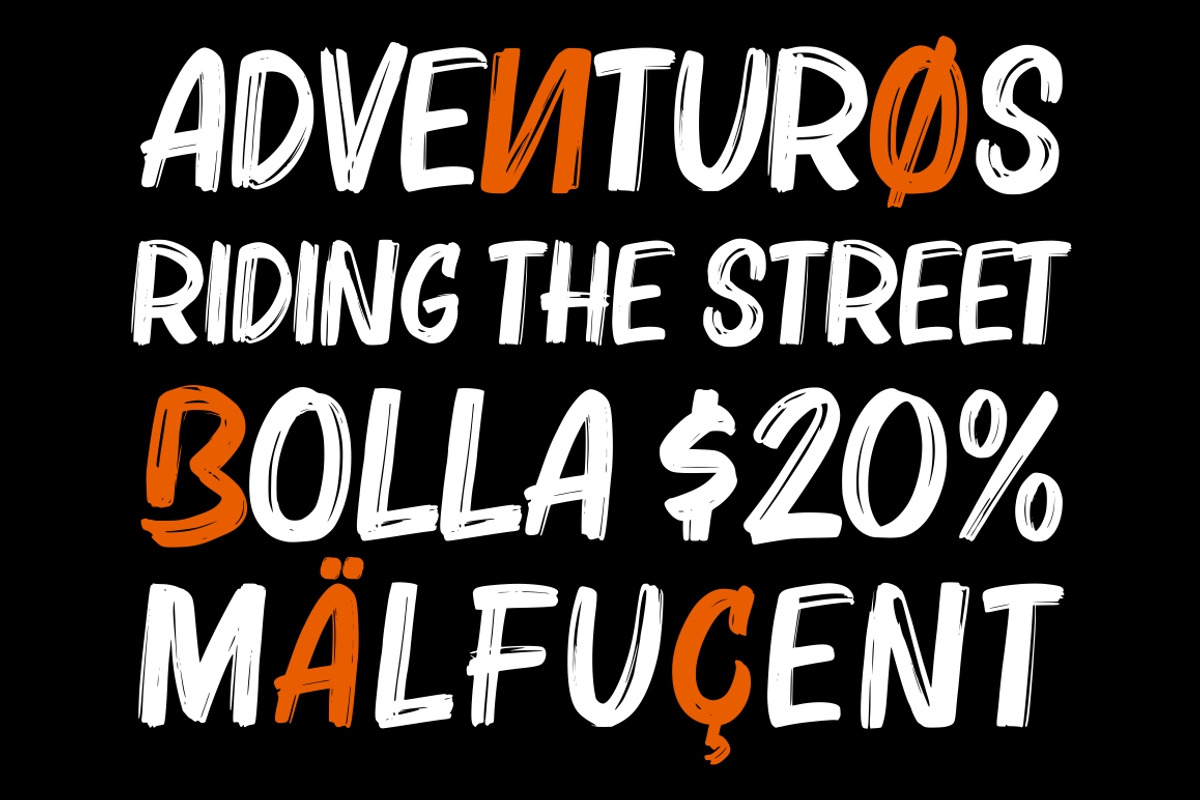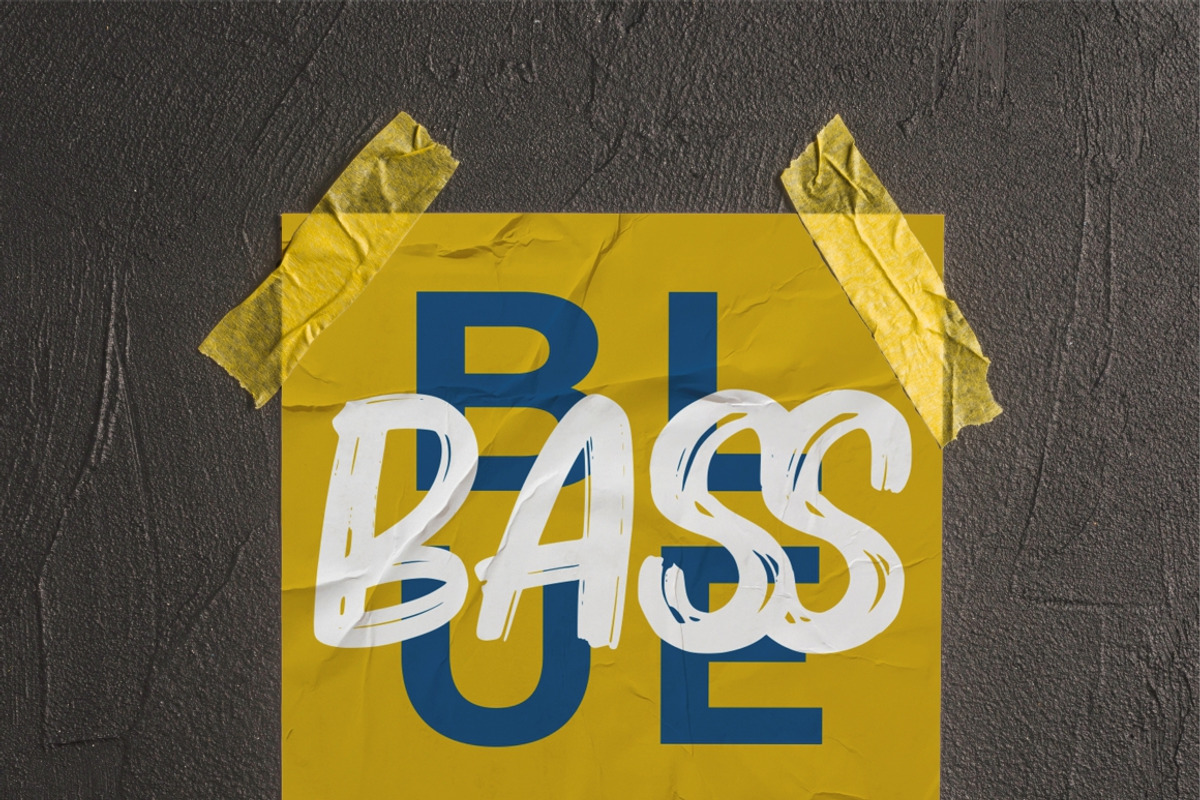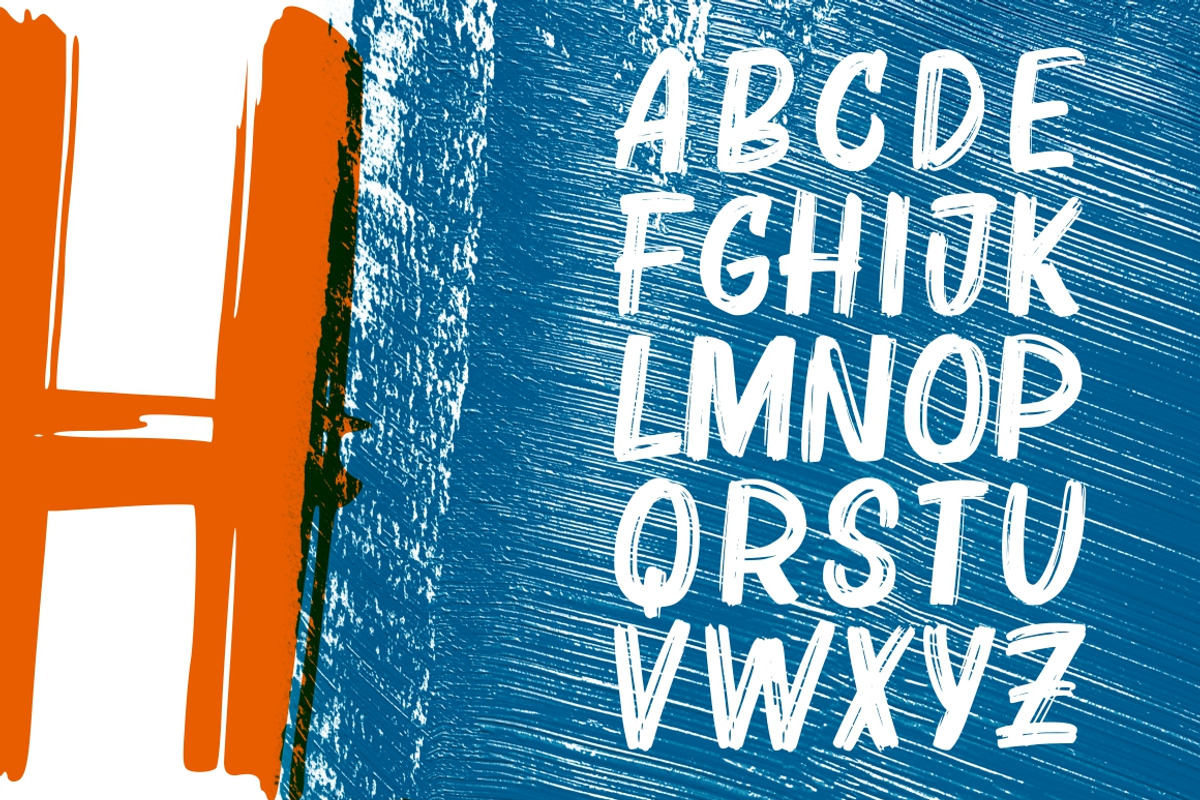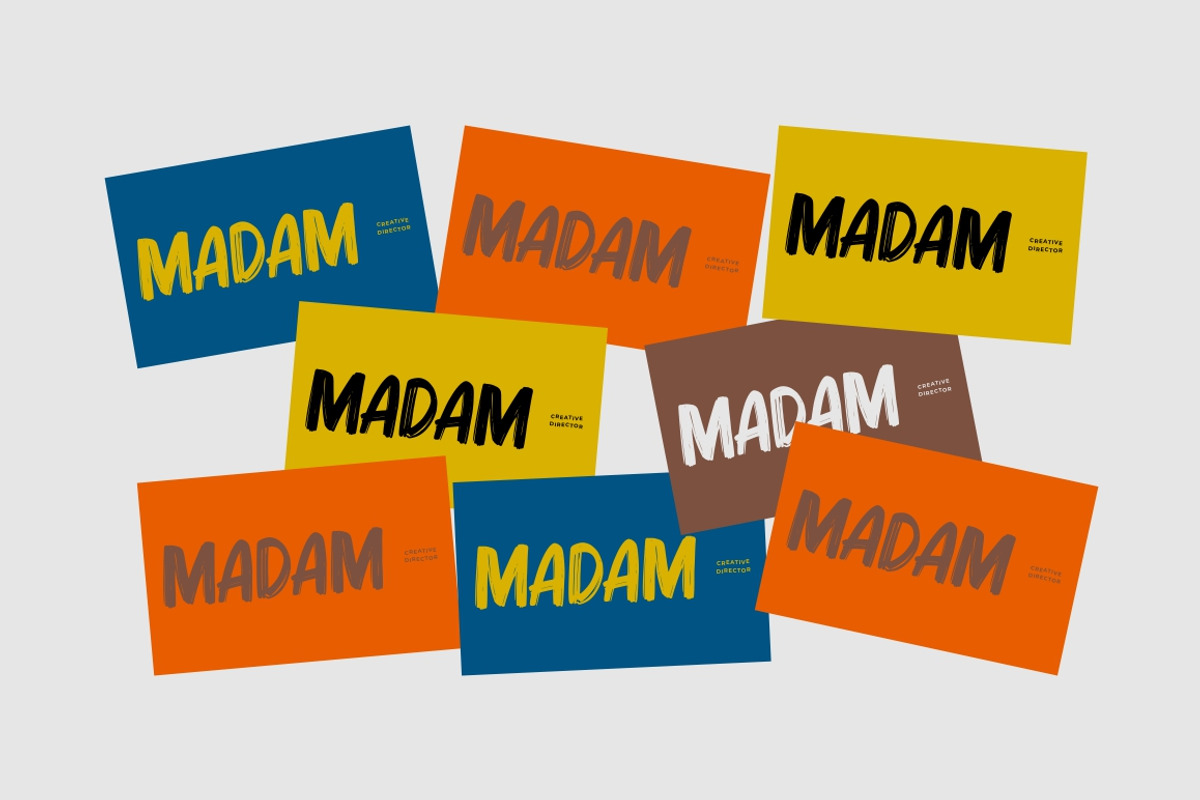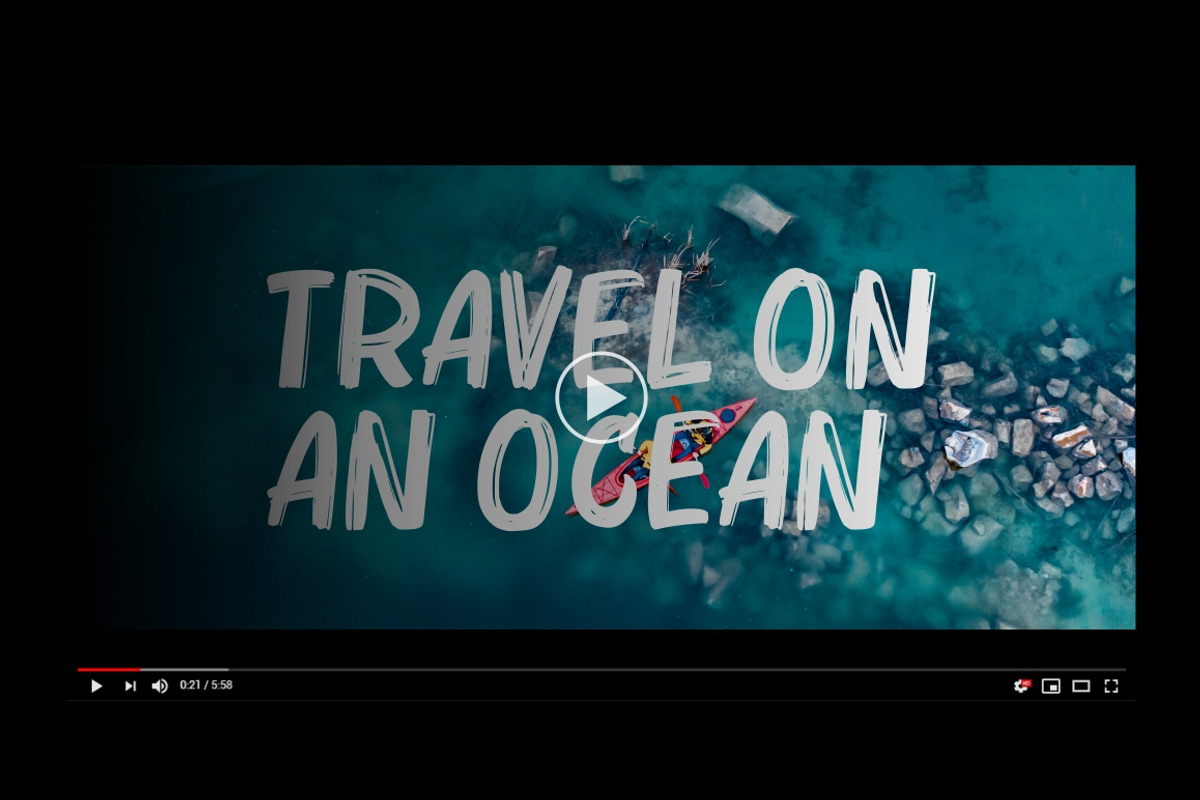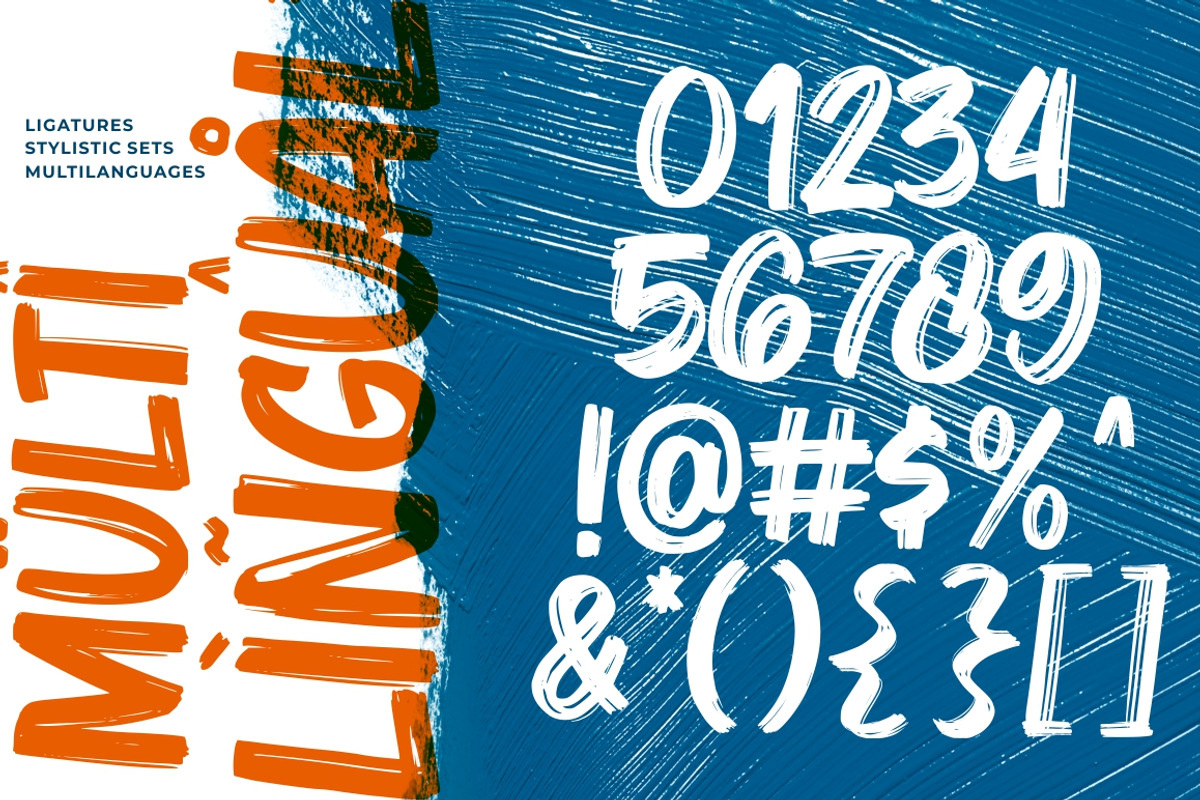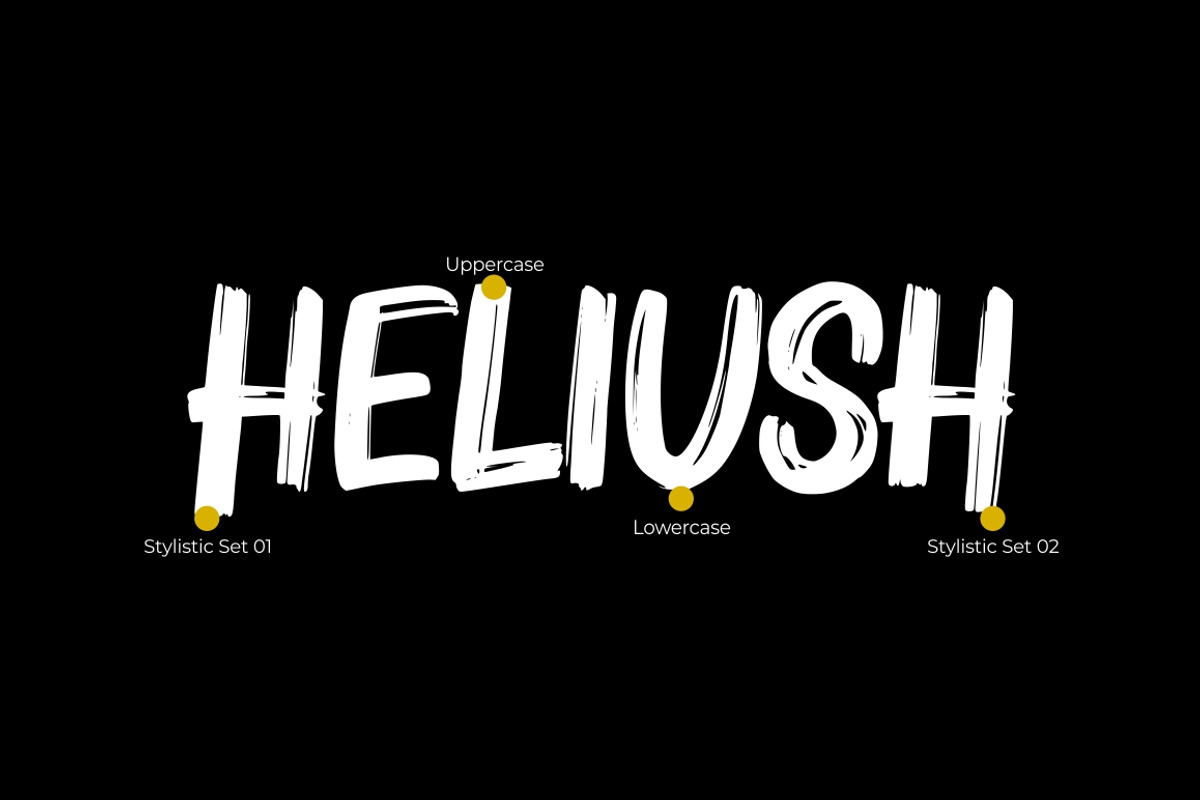
Bruzh - Handbrush Font
Introducing Bruzh - Handbrush Font
Bruzh combines attractive curves with a fresh urban edge; delivering a stylish script which is guaranteed to add an eye-catching appeal to your logo designs, brand imagery, handwritten quotes, product packaging, merchandise & social media posts
Multilingual Support (available for 23 Language)
Opentype Features (Stylistic Set 01, 02 & Ligatures)